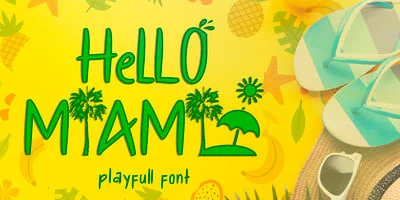
HeLLO MIAMI Font
The HeLLO MIAMI Font is an outstanding choice for any project that needs a burst of energetic, retro-inspired style with a modern flair. This font captures the vibrant essence of Miami's art deco scene, making it perfect for creating eye-catching posters, upbeat event invitations, and lively social media graphics. Its playful, curved letterforms and dynamic personality make it a favorite for brands in the hospitality, entertainment, and fashion industries. Whether you're designing a logo for a new beachside cafe or a promotional flyer for a music festival, this font adds an unforgettable touch of fun and excitement.
What makes this font so exciting is its ability to instantly evoke a specific mood and era. The HeLLO MIAMI Font features a bold, fluid design that feels both nostalgic and fresh. The rounded, flowing lines are not just aesthetically pleasing—they also contribute to the font's high readability, ensuring your message is communicated with maximum impact. This font’s unique character allows it to stand out effortlessly from more traditional typefaces, making it a powerful tool for visual storytelling. It’s a font that doesn’t just convey words; it conveys a feeling of sun-soaked days and vibrant nightlife, giving your designs an immediate personality.
The HeLLO MIAMI Font family provides a variety of styles to enhance your creative options. While often celebrated for its bold display weight, the full family can include different variations that allow you to create a cohesive design system. These variations might include a slightly more condensed or extended version, giving you the flexibility to fit the font into different spaces while maintaining its core style. The HeLLO MIAMI Font offers a great way to explore these possibilities and see how this expressive typeface can elevate your projects.
By choosing the HeLLO MIAMI Font, you are selecting a typeface that brings life, energy, and a touch of vintage cool to any design. It is a font that works tirelessly to make sure your creations are not just seen, but felt, leaving a lasting impression on your audience.